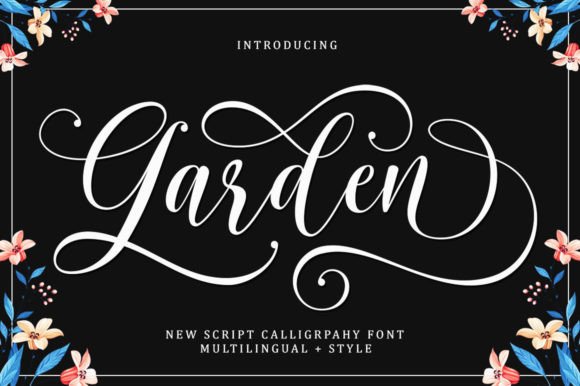
Discover the enchanting beauty of Garden Font, a captivating addition to your font collection. Crafted with an elegant touch, this flowing handwritten font will elevate your designs and leave a lasting impression on your audience.
Garden Font, a member of the script font family, is the perfect choice for label design. Its expressive and organic strokes add a touch of personality and sophistication to any project. Whether you're creating product labels, packaging designs, or branding materials, Garden Font will effortlessly enhance your work and make it stand out from the crowd.
Created by the talented designers at kartinytype, Garden Font exudes a timeless charm that will never go out of style. Its delicate curves and impeccable letterforms evoke a sense of elegance and grace, making it a versatile choice for various design purposes.
Immerse yourself in the endless possibilities that Garden Font offers. From wedding invitations to art prints, this font will add a touch of romance and whimsy to your creations. Let your imagination run wild as you explore the versatility and beauty of Garden Font.
Embrace the power of emotion in your designs with Garden Font. Its graceful strokes and captivating style will evoke feelings of joy, nostalgia, and inspiration. Transport your audience to a world of beauty and creativity, leaving a lasting impression on their hearts and minds.
Experience the artistry and elegance of Garden Font. Let its flowing beauty transform your designs into true works of art. Ignite your creativity and captivate your audience with this exquisite font. Elevate your design game and leave a lasting impression with Garden Font.